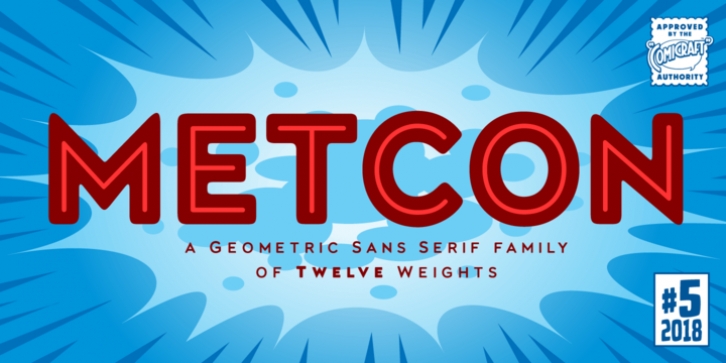
Metcon was designed by John Roshell and published by Comicraft. Metcon contains 12 styles and family package options.
Enough talk. Metcon is not here to talk. It's simply here to PUMP... YOU UP.